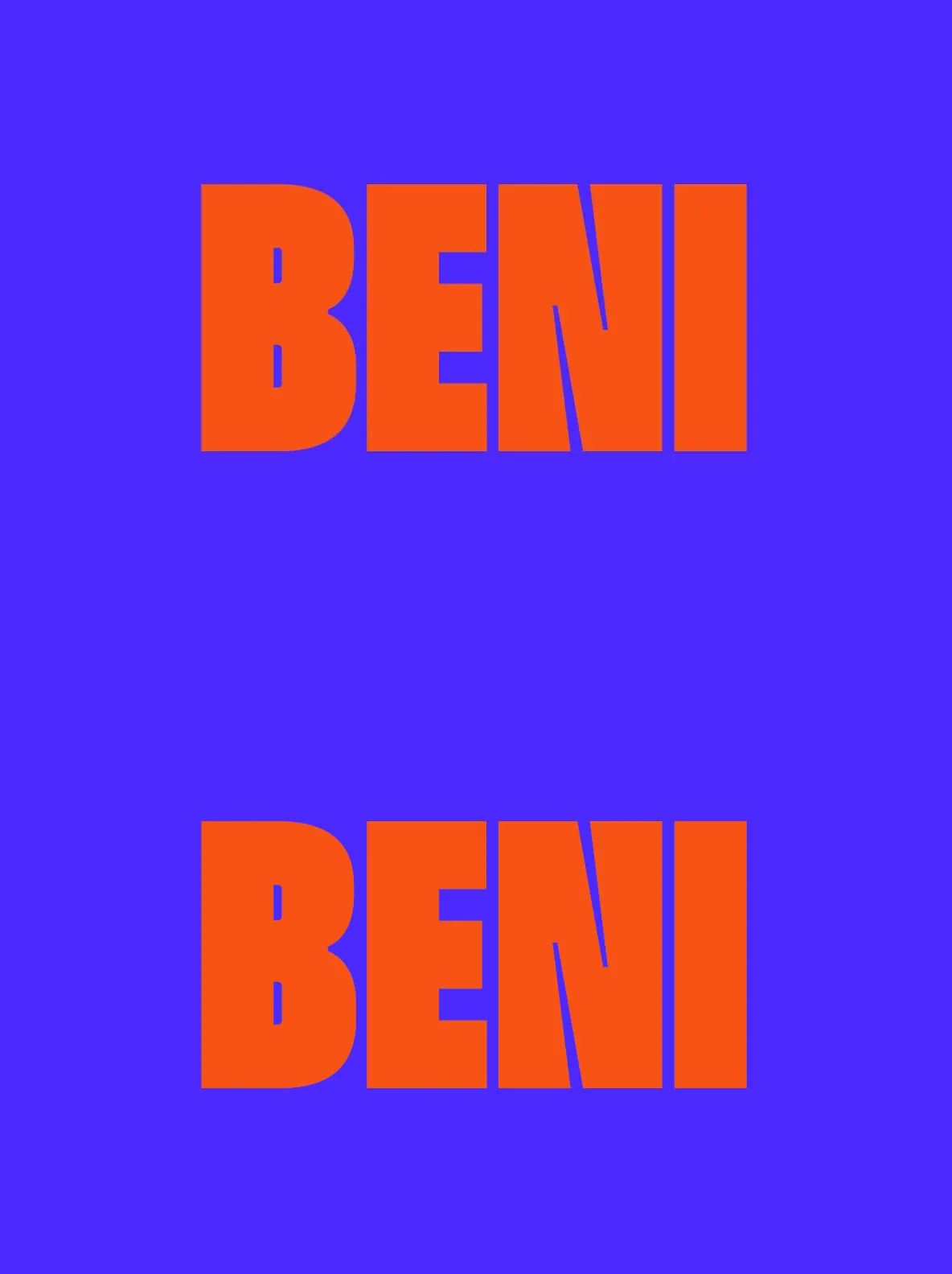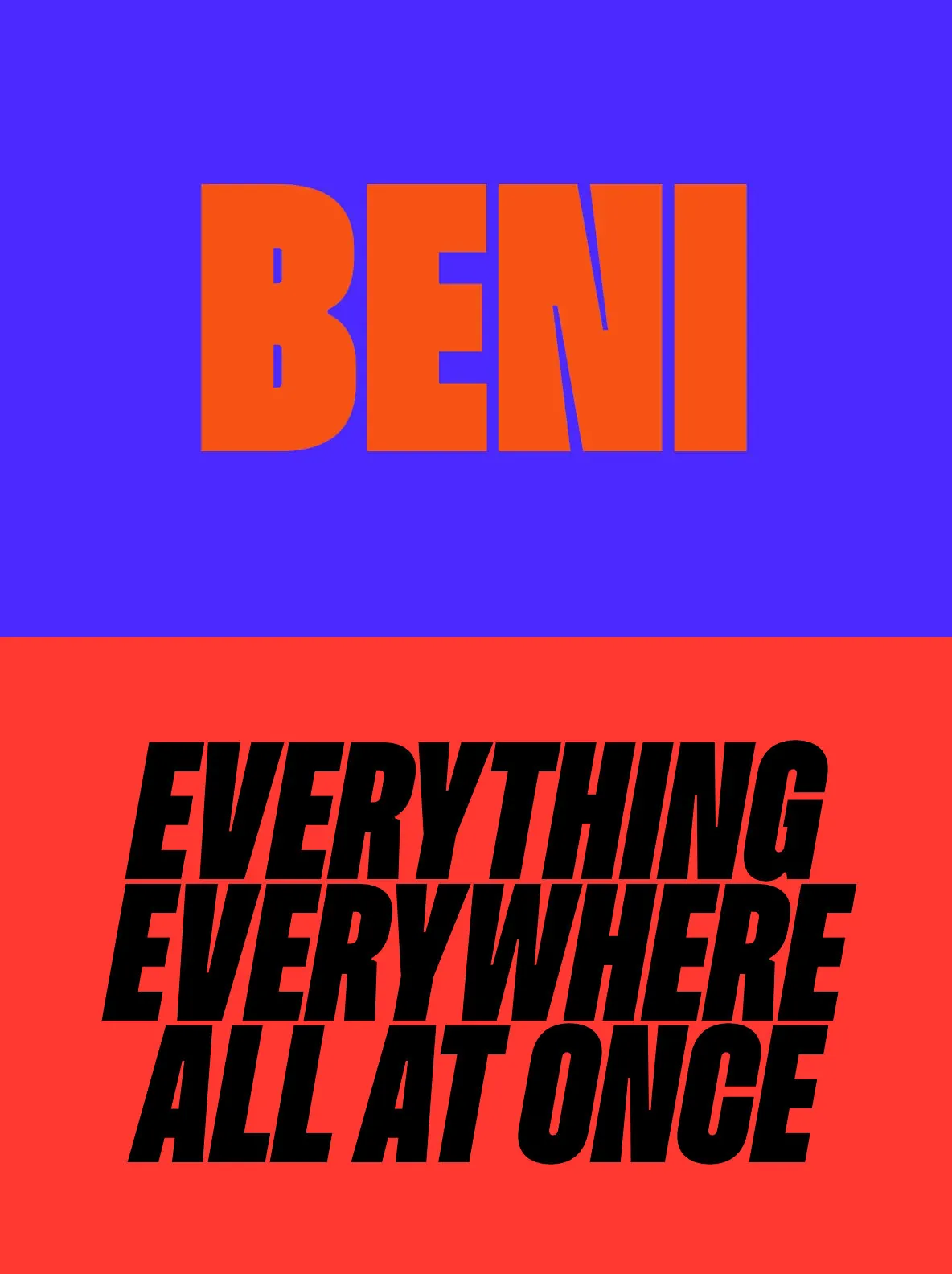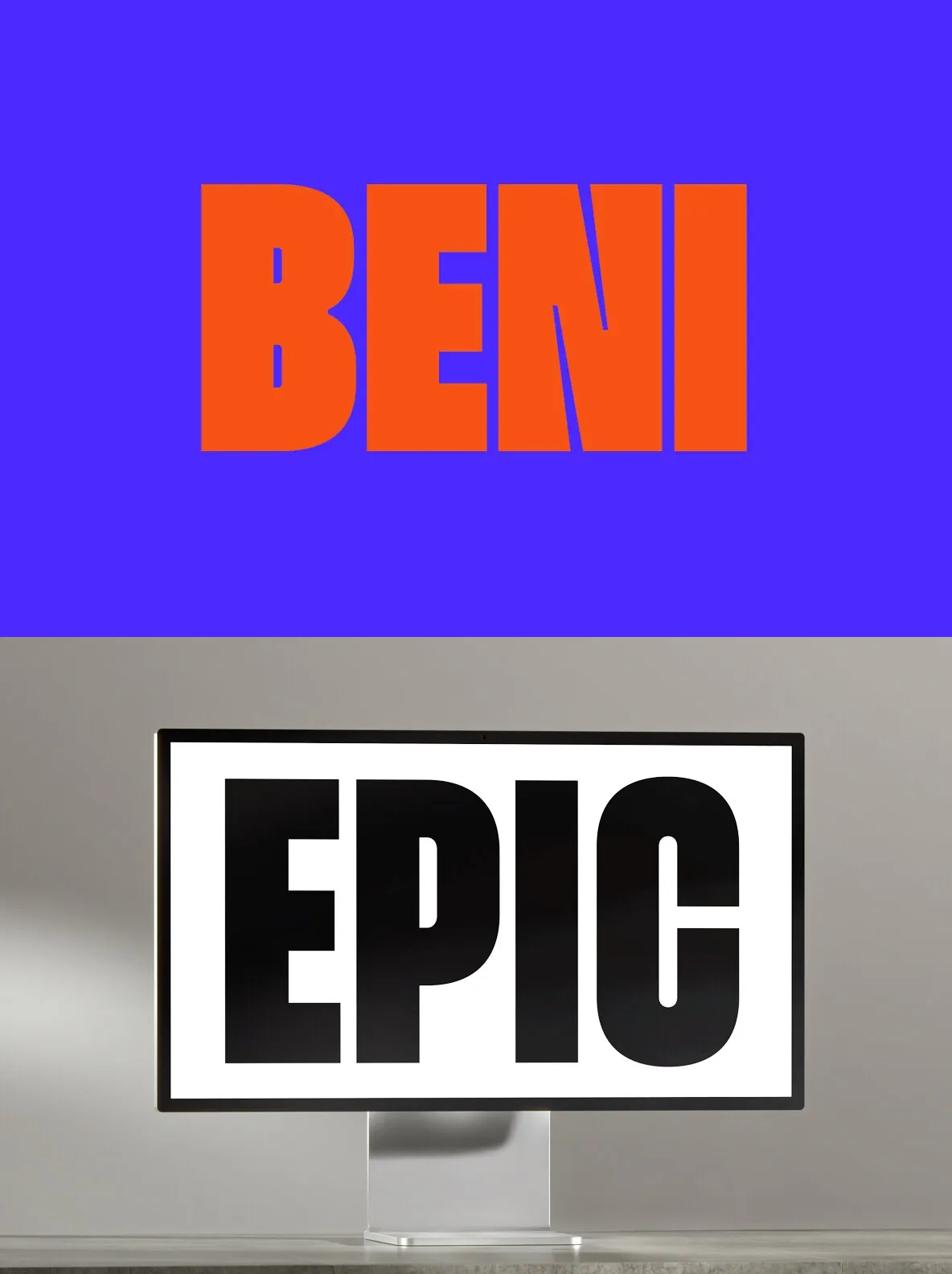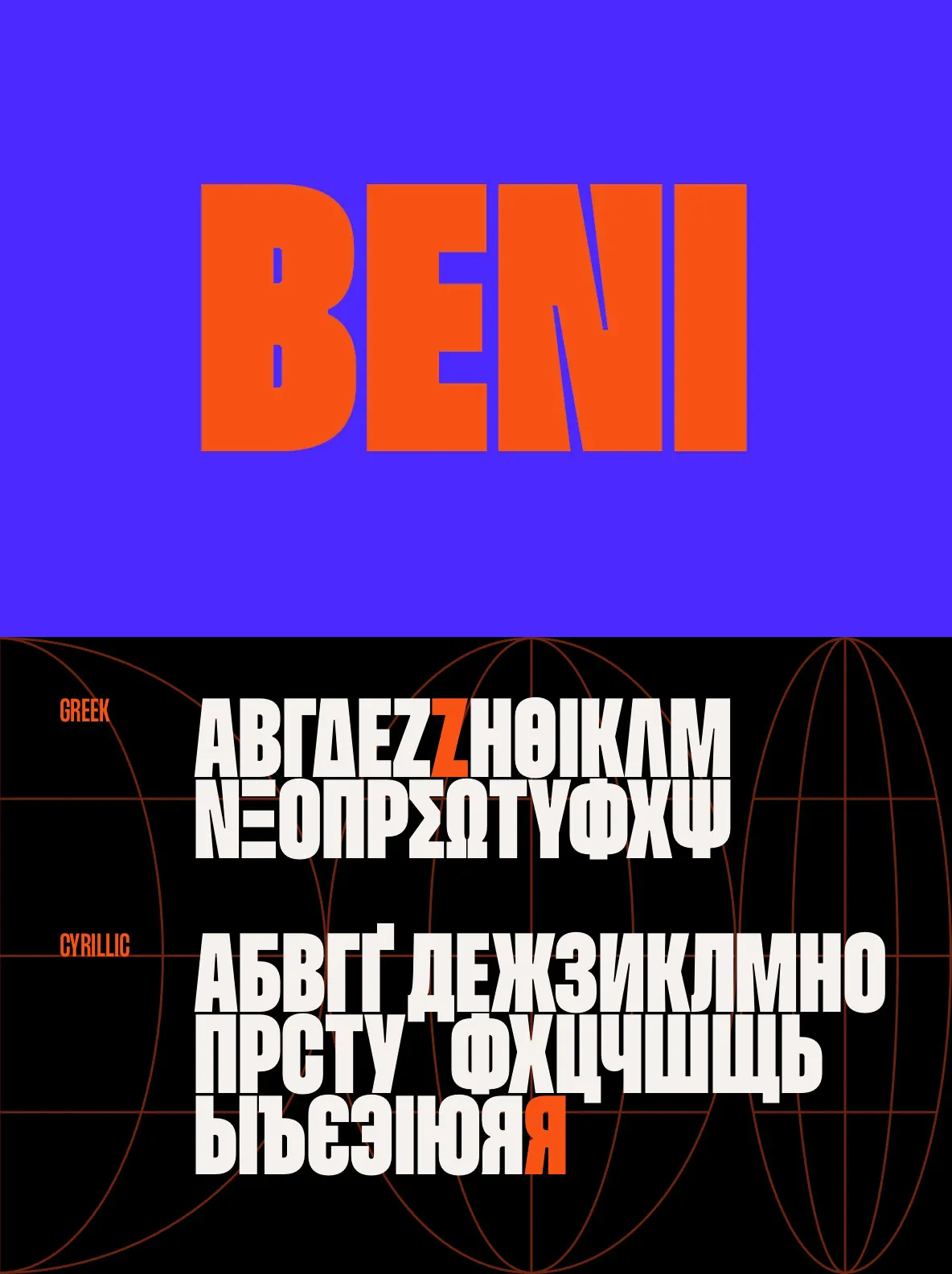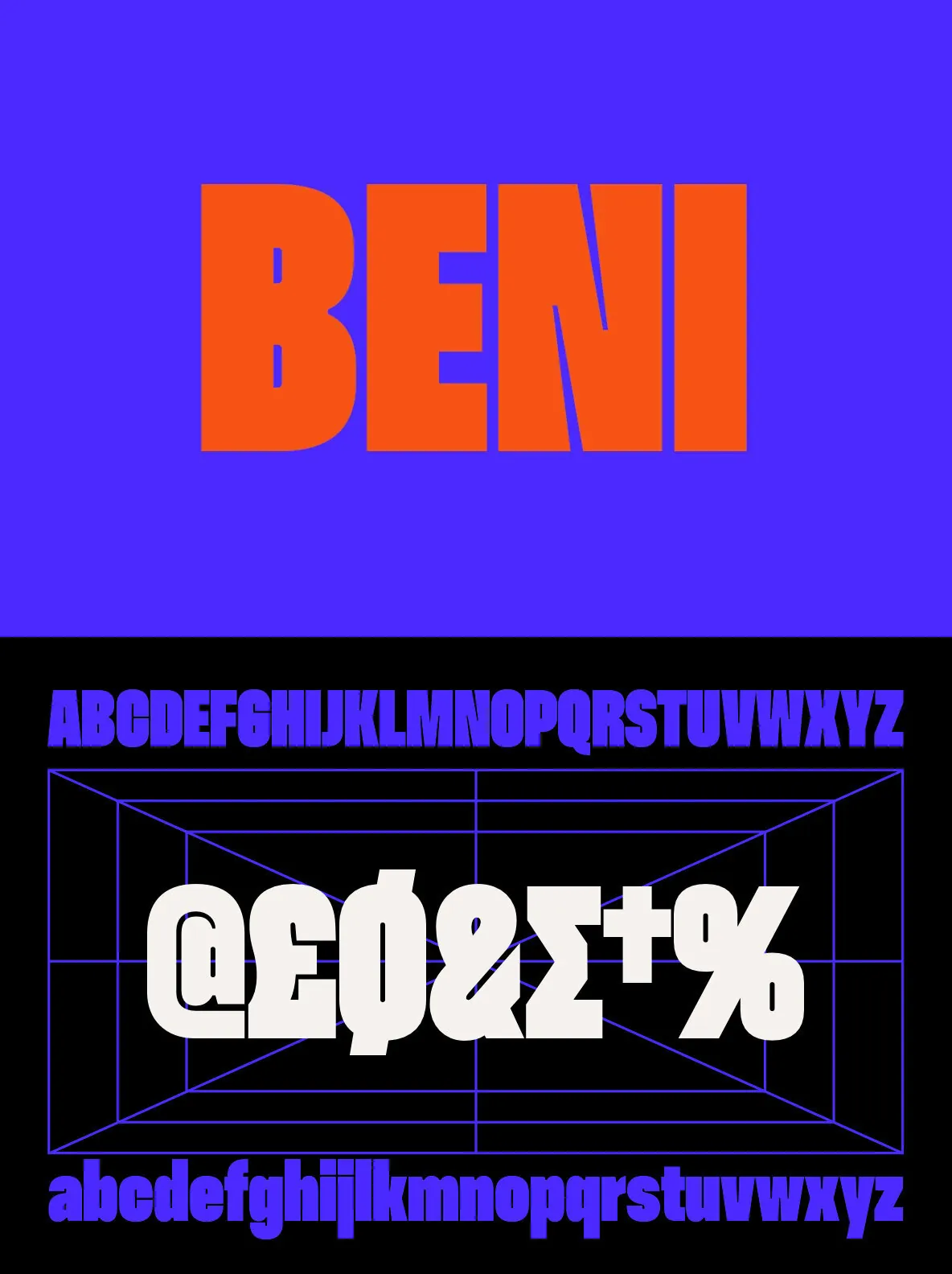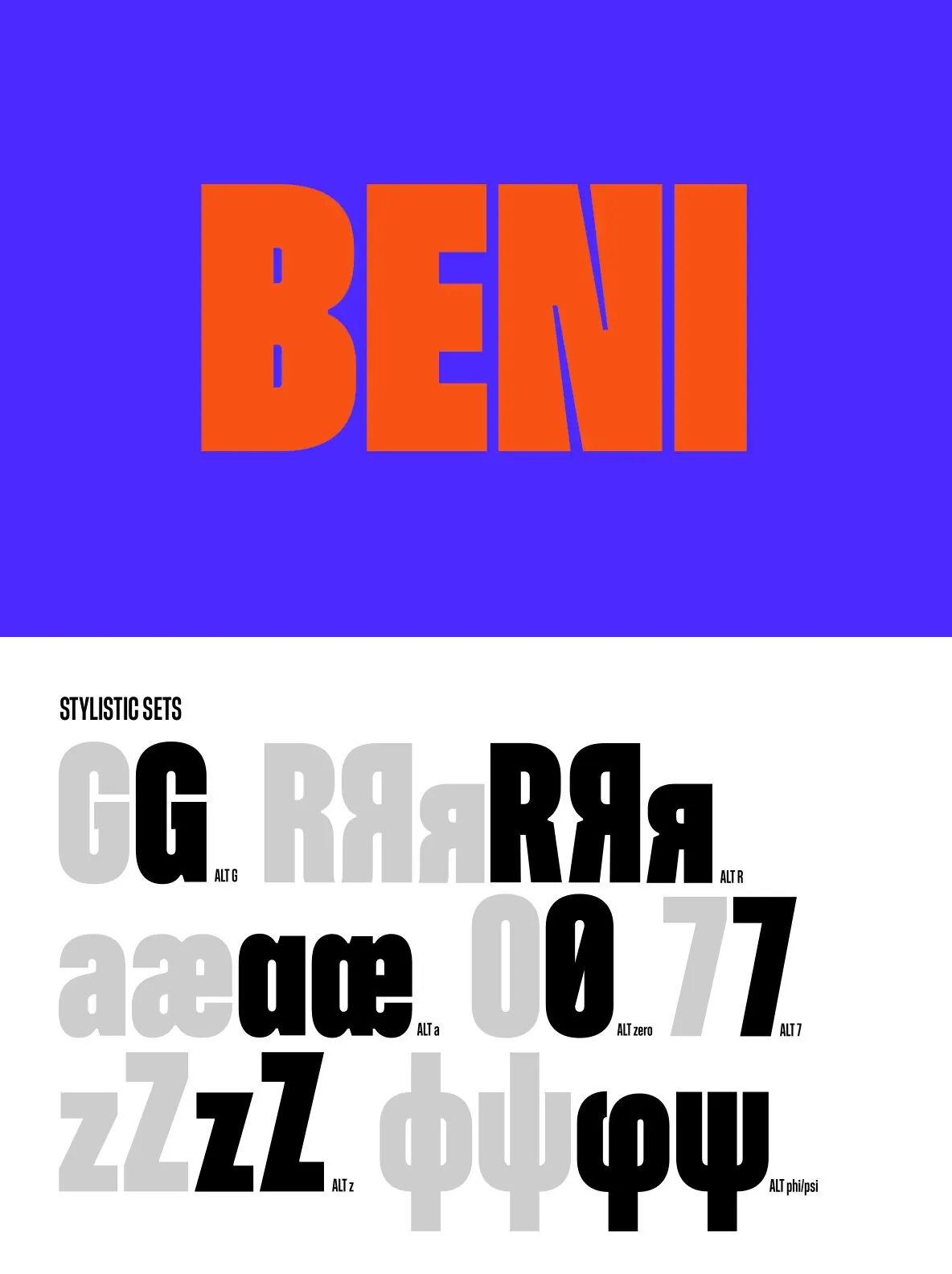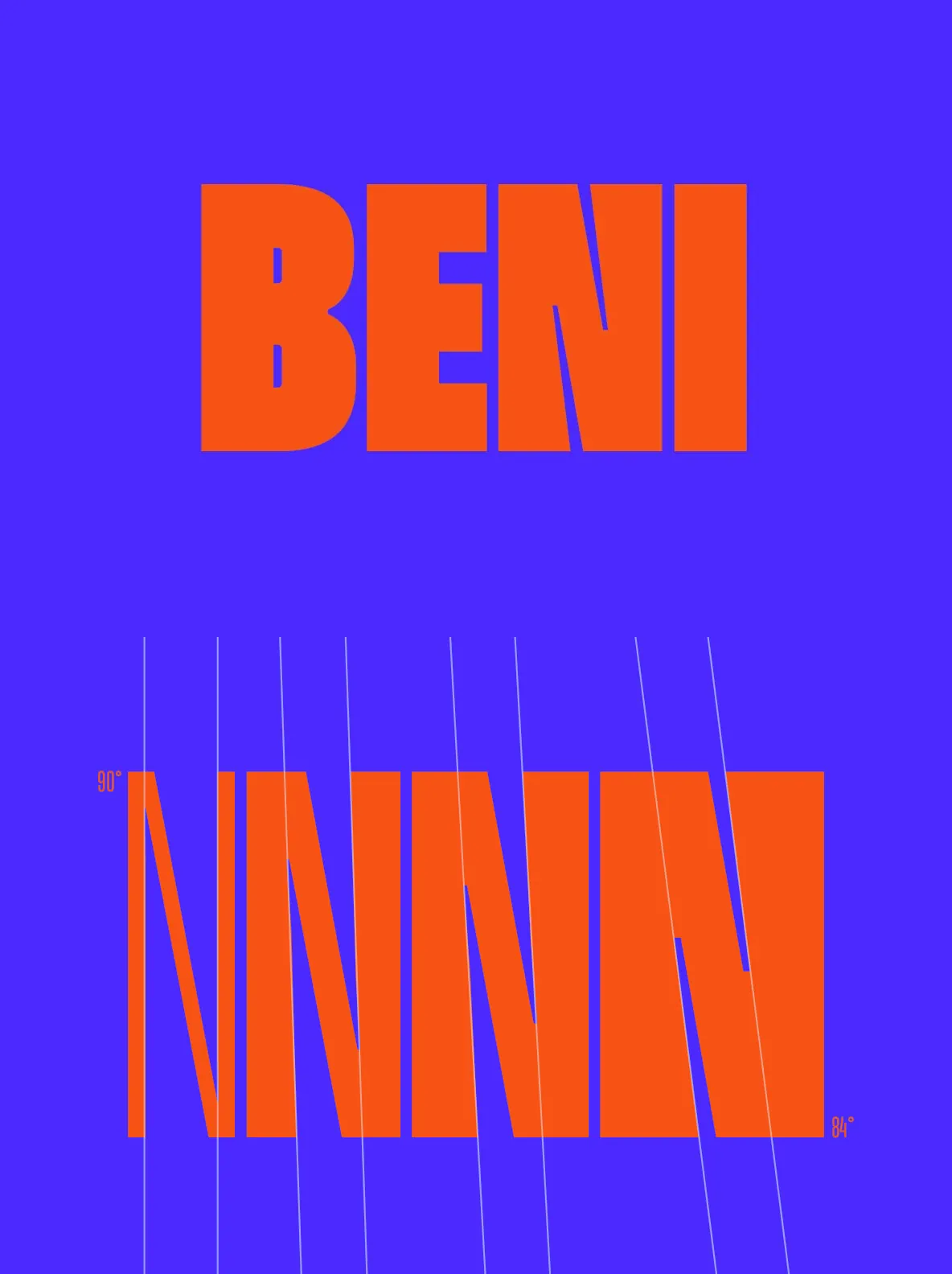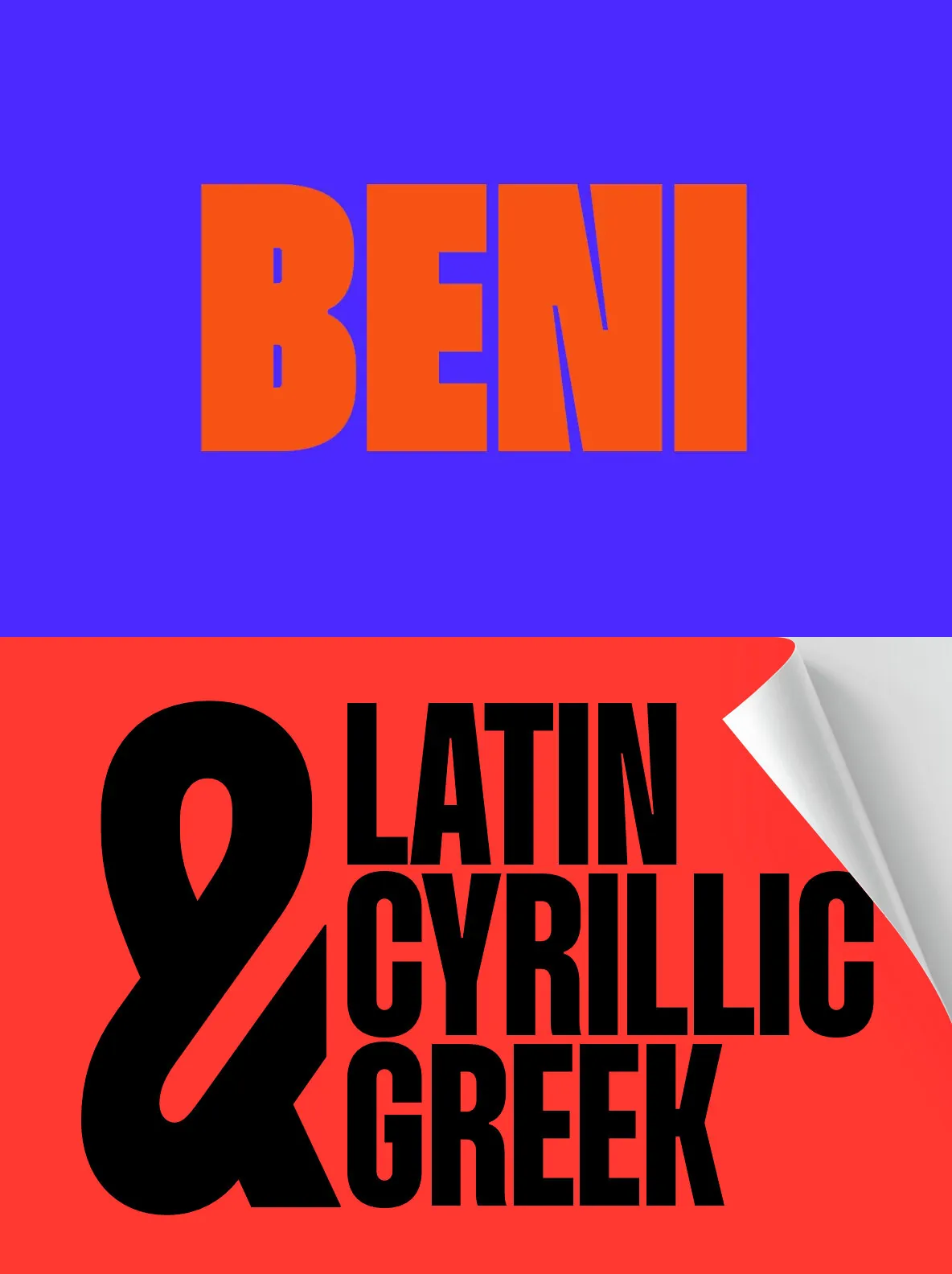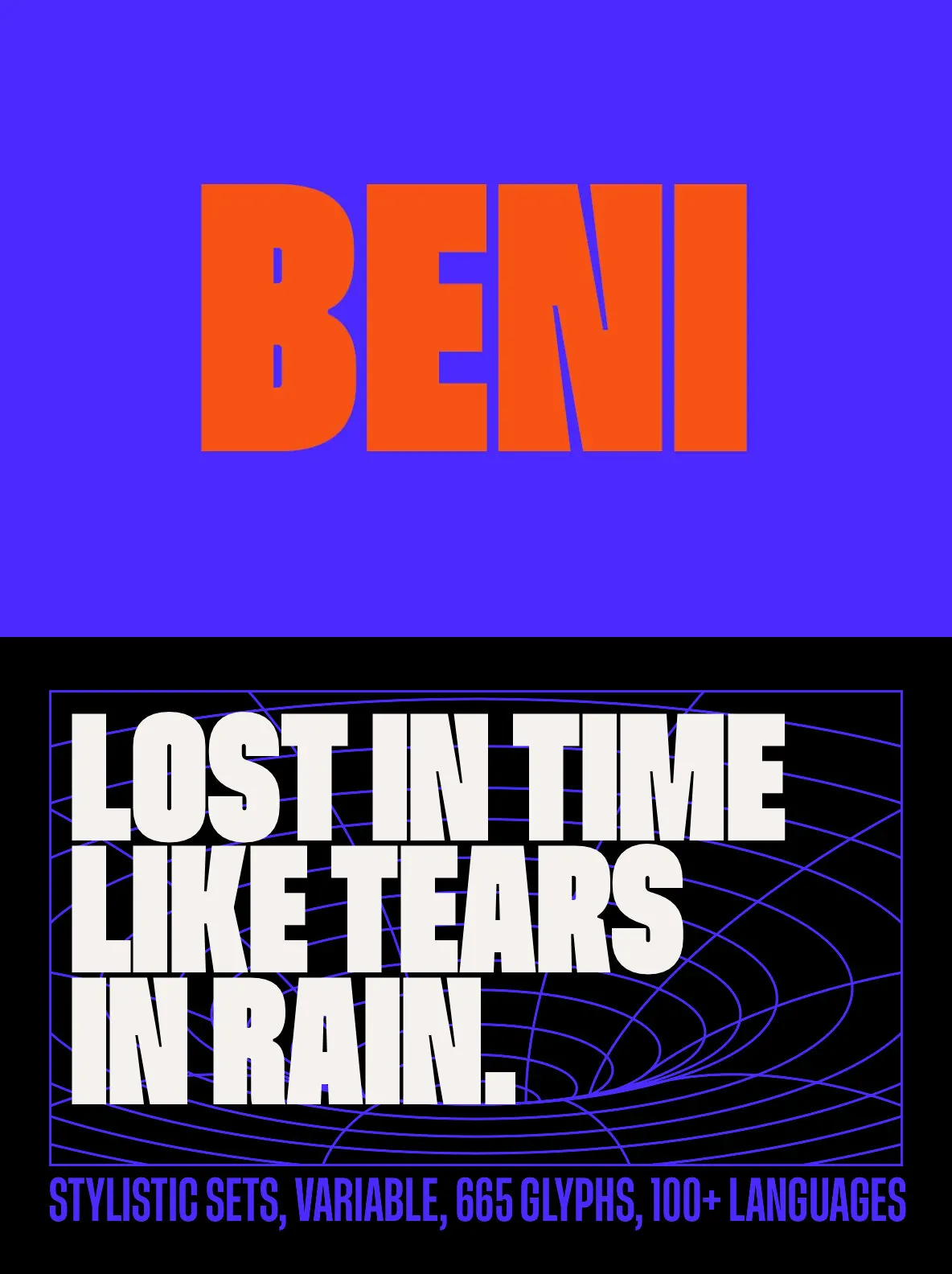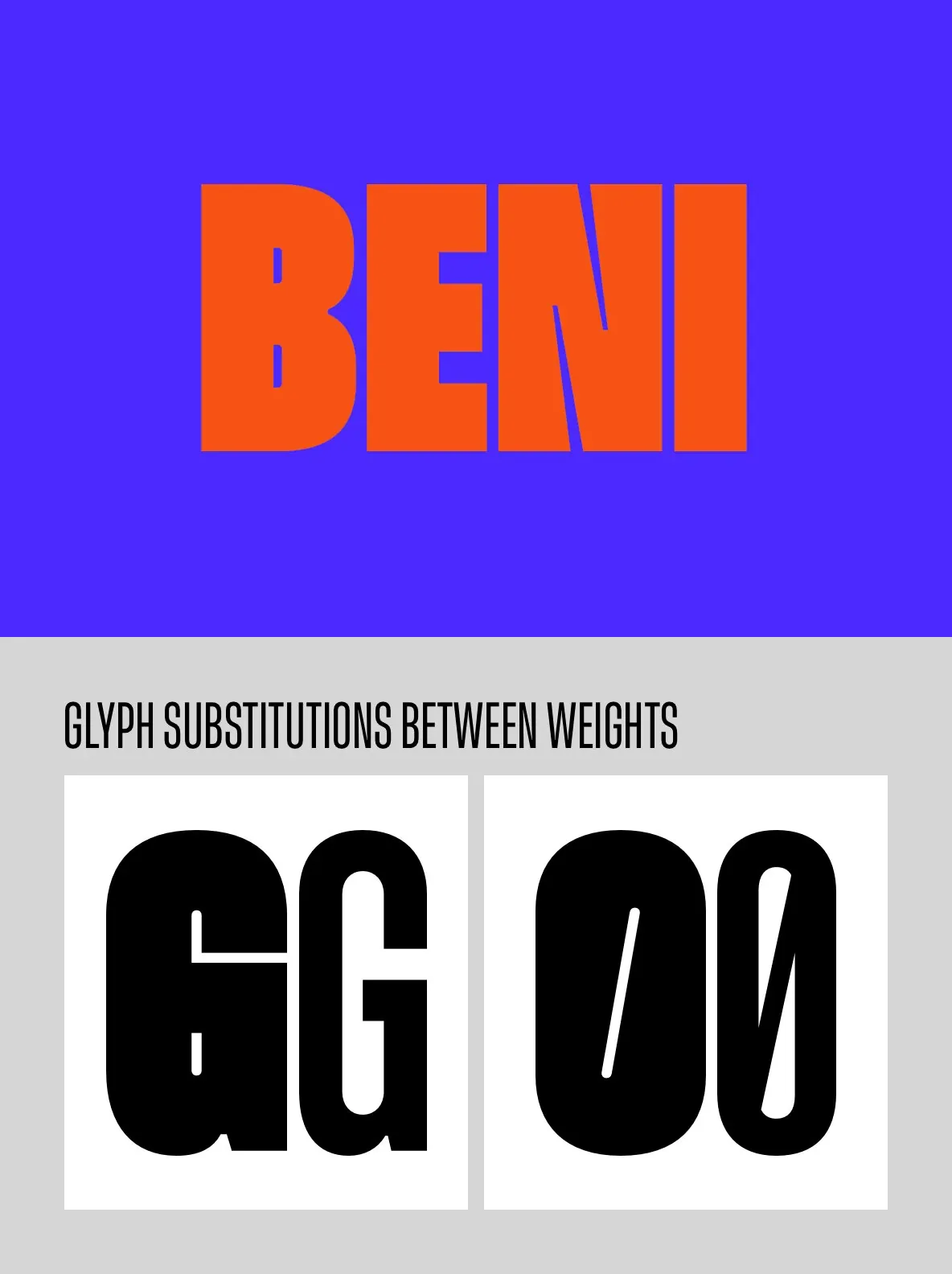
Beni: A Condensed Grotesk Typeface for Modern Headlines
Beni is a condensed grotesk font family created for projects requiring clarity and visual presence. Designed with inspiration from classic movie posters, its compact forms bring an assertive tone to headlines in posters and user interfaces. Optical adjustments within its design enable efficient use of space, making it well-suited for digital and print environments where legibility and economy are essential.
Beni’s versatility stems from four distinct styles, including both upright and italic variations, ranging from light to black. The comprehensive glyph set supports almost 100 languages via the Latin Extended-A unicode block, and extends to basic Greek and Cyrillic, providing typographic adaptability across diverse global contexts. The font further distinguishes itself by offering stylistic sets, glyph substitutions that introduce subtle form changes between weights, and an extensive OpenType feature set. With 667 glyphs in each style, Beni offers creative flexibility for designers working on editorial layouts, branding, or digital interfaces.
Features:
Four styles, from light to black + italics
Condensed letterforms inspired by movie posters
Optimized spacing through optical compensations
Support for almost 100 languages plus basic Greek and Cyrillic
Stylistic sets and variable glyph shapes between weights
667 glyphs per style and comprehensive OpenType features